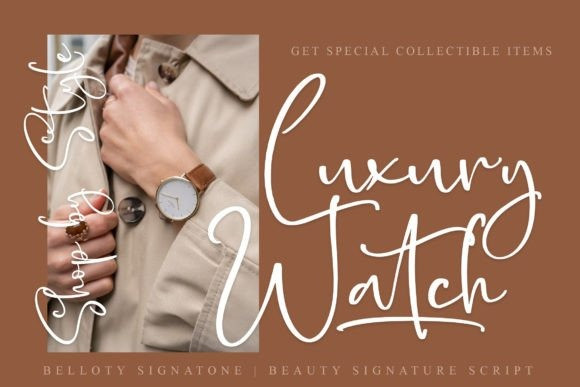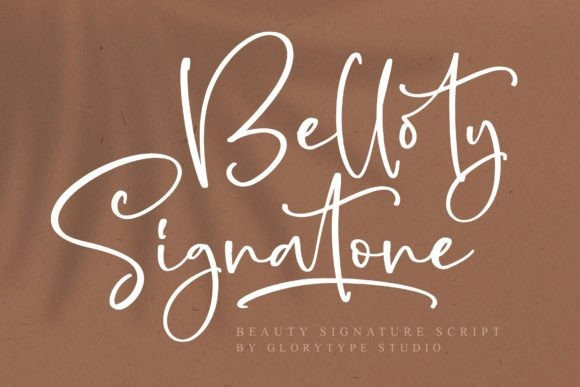
Belloty Signatone Font
Belloty Signatone Font is a signature font that’s easy to read, simple, but still with that handwritten feel. It’s perfect for greeting cards, magazines, headers, social media, and more.